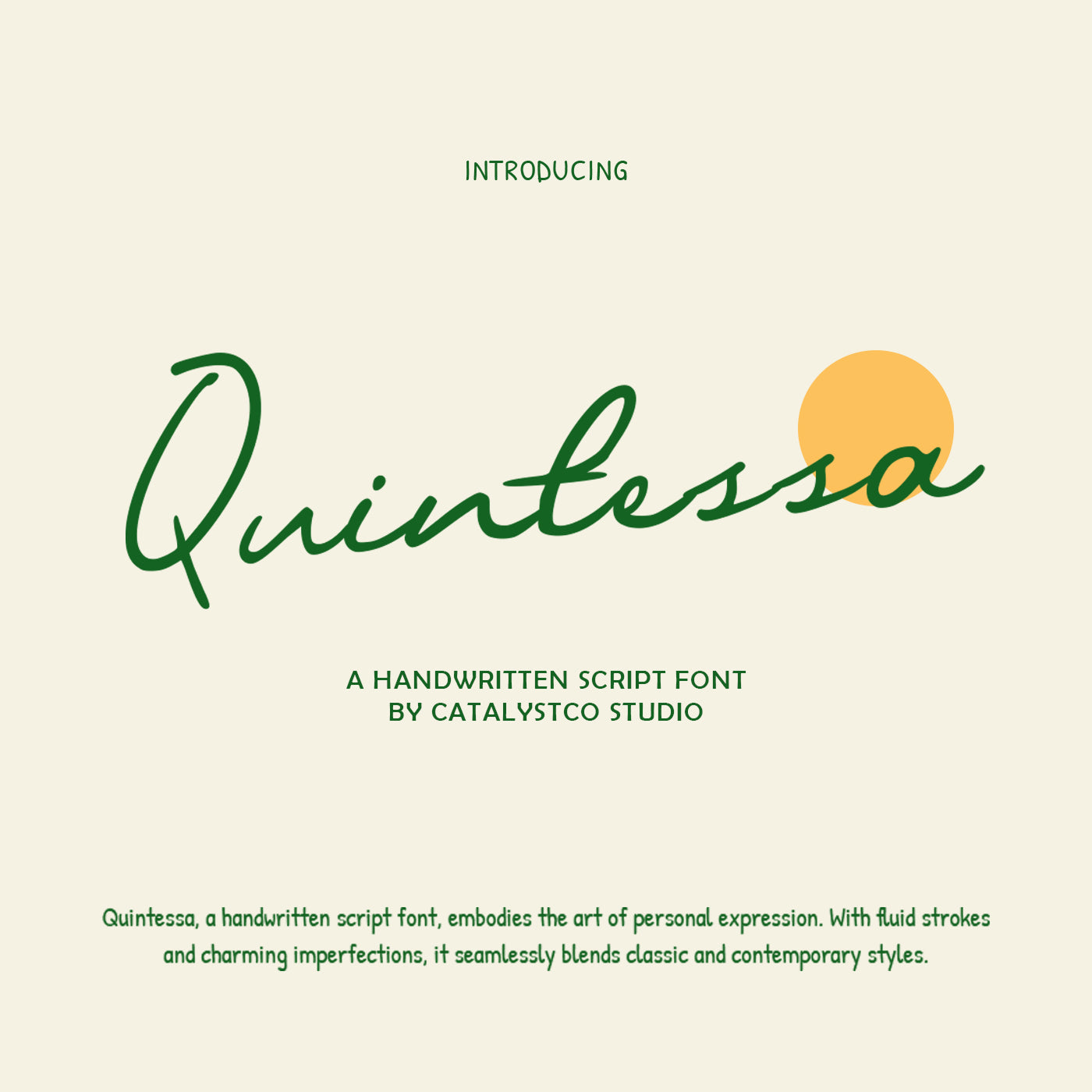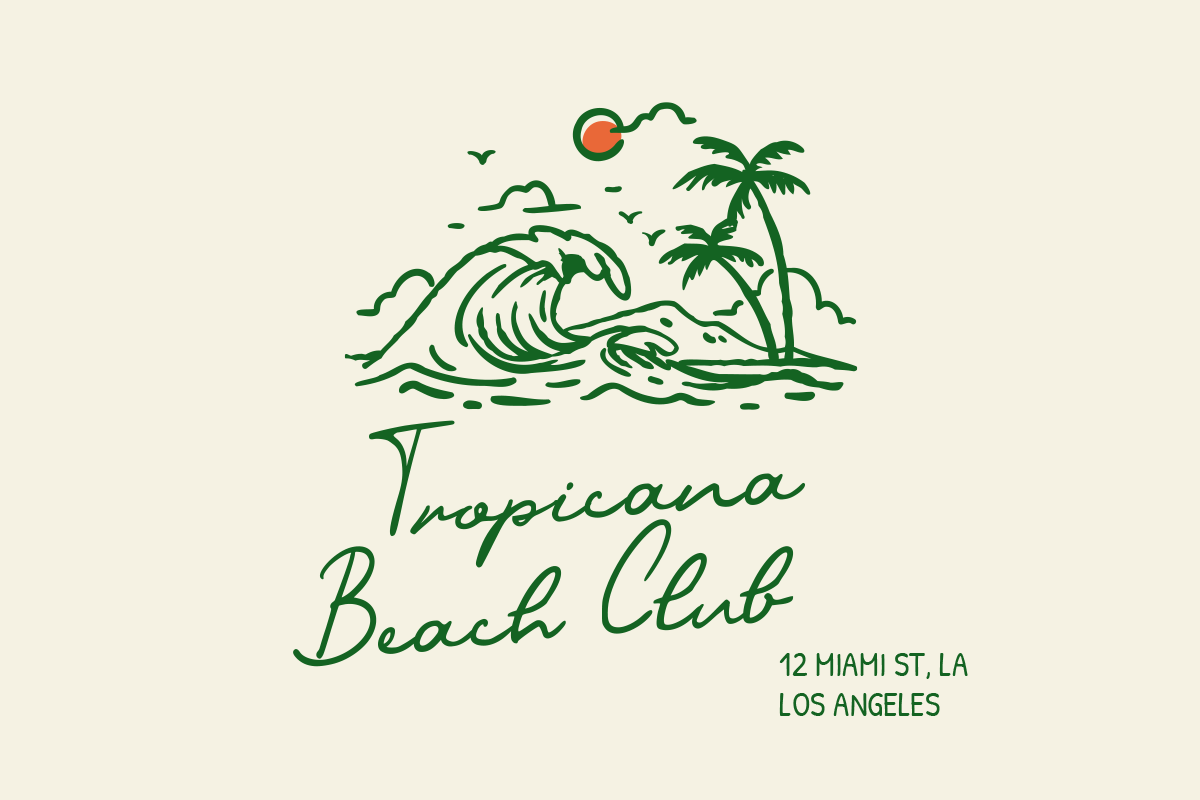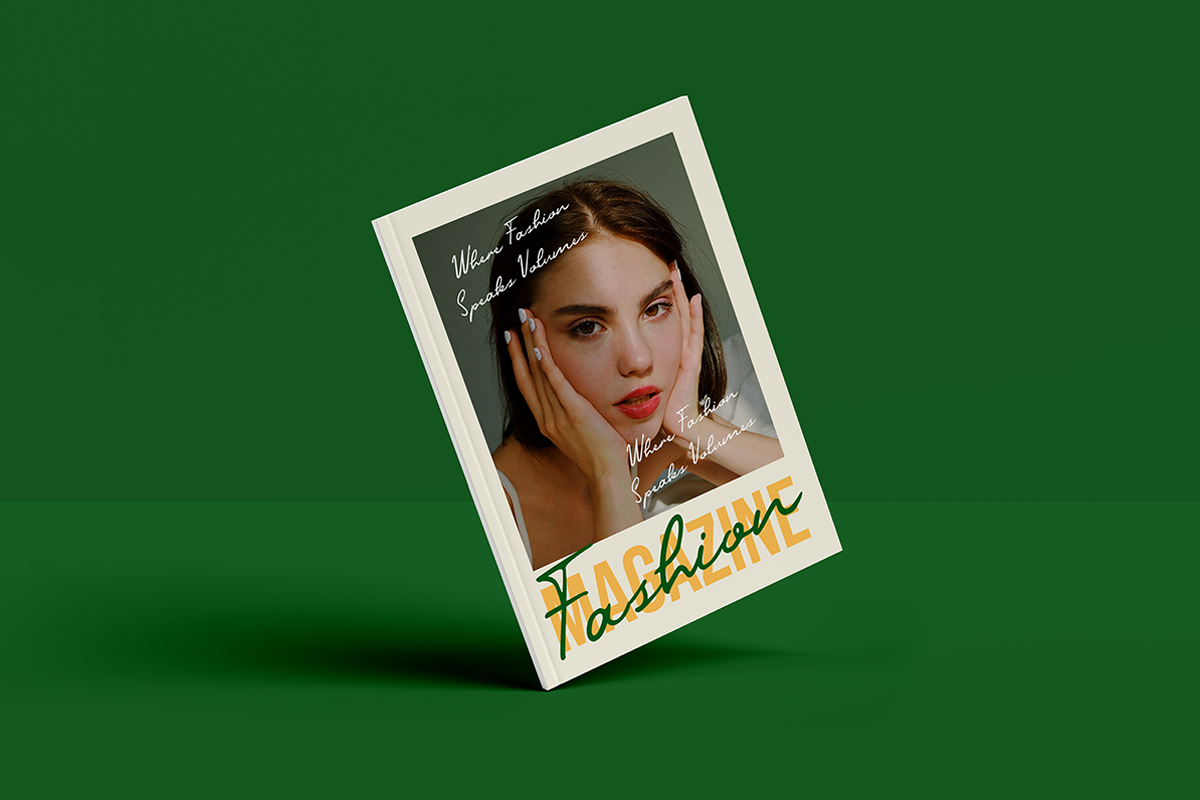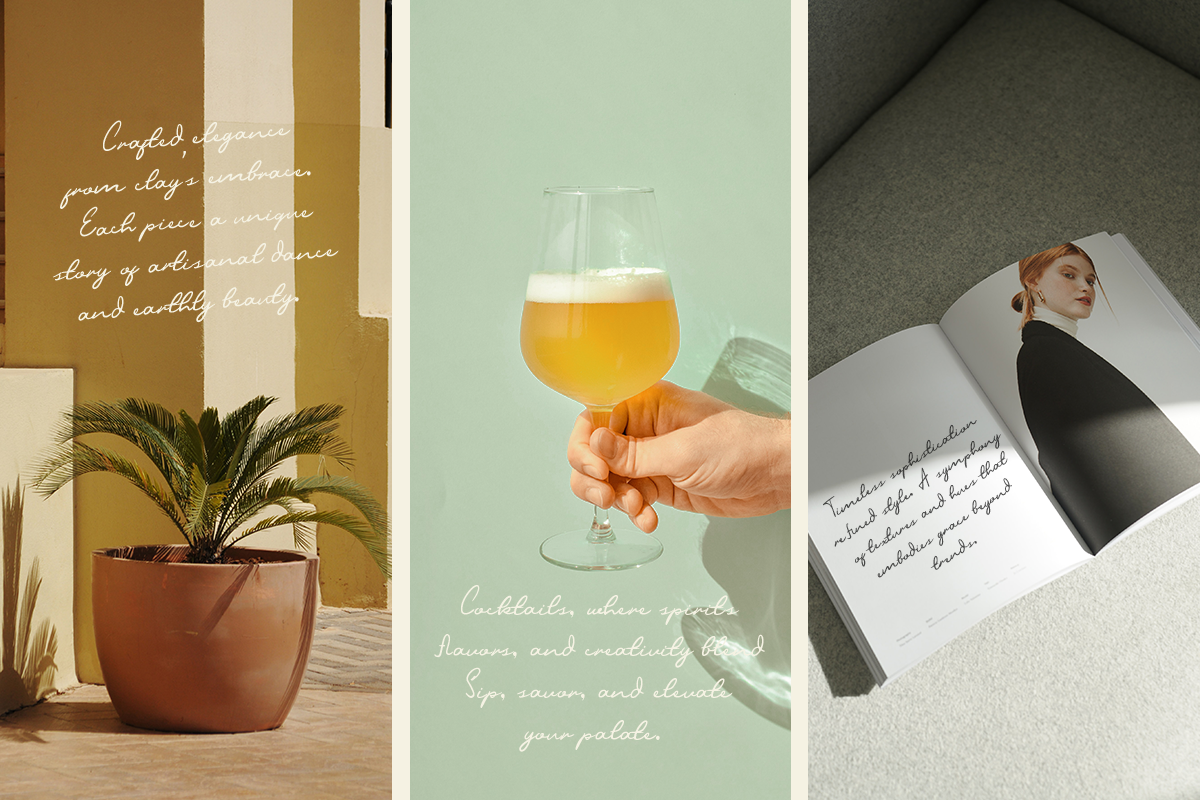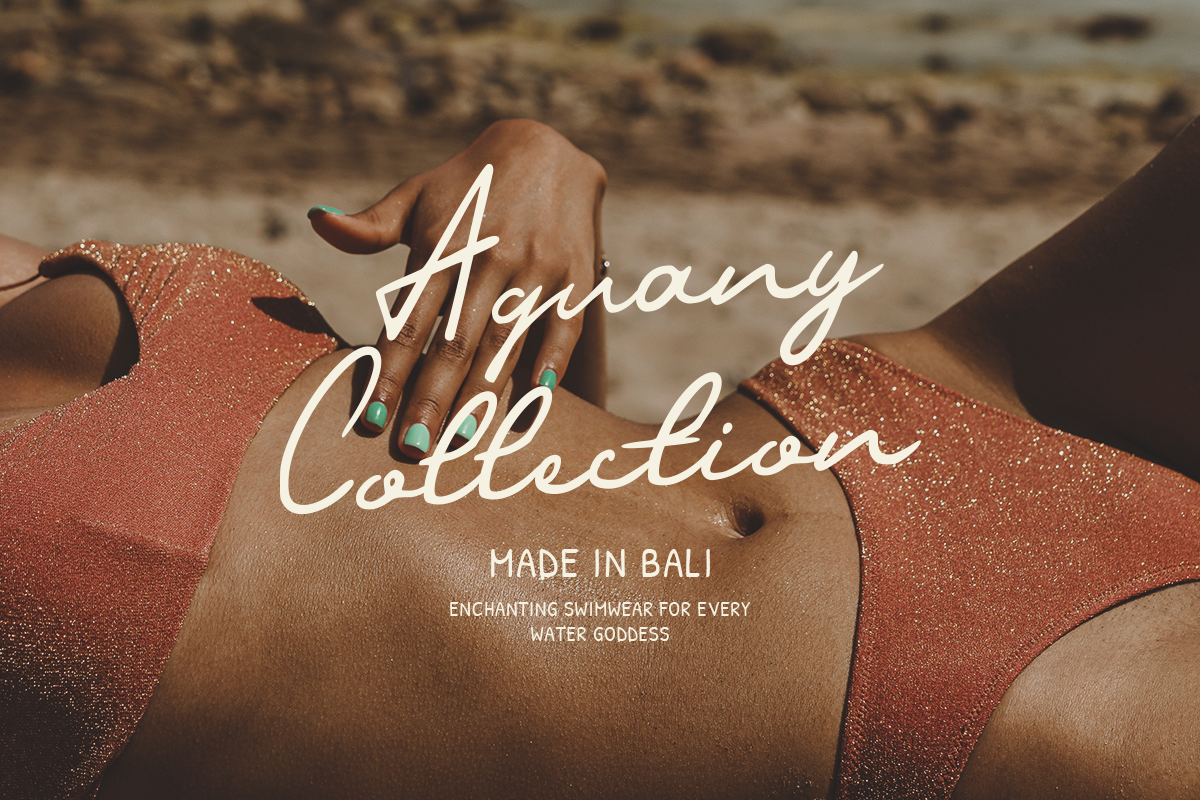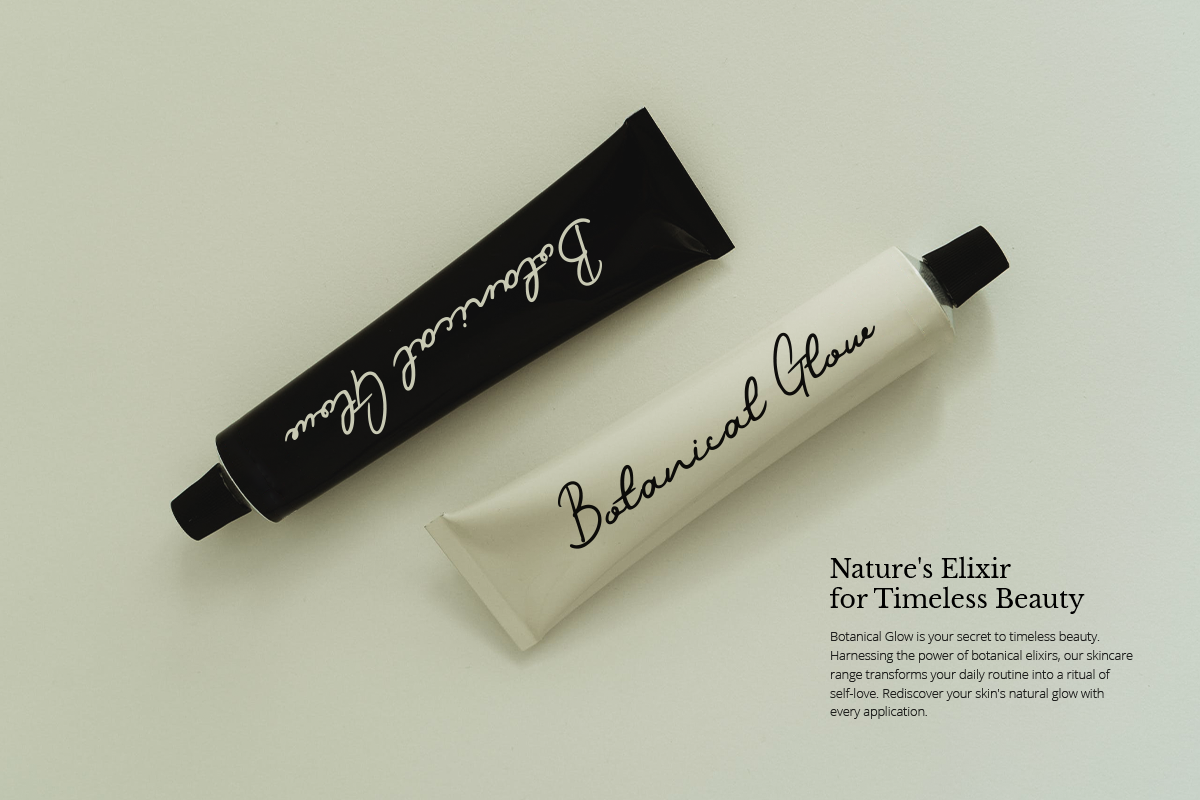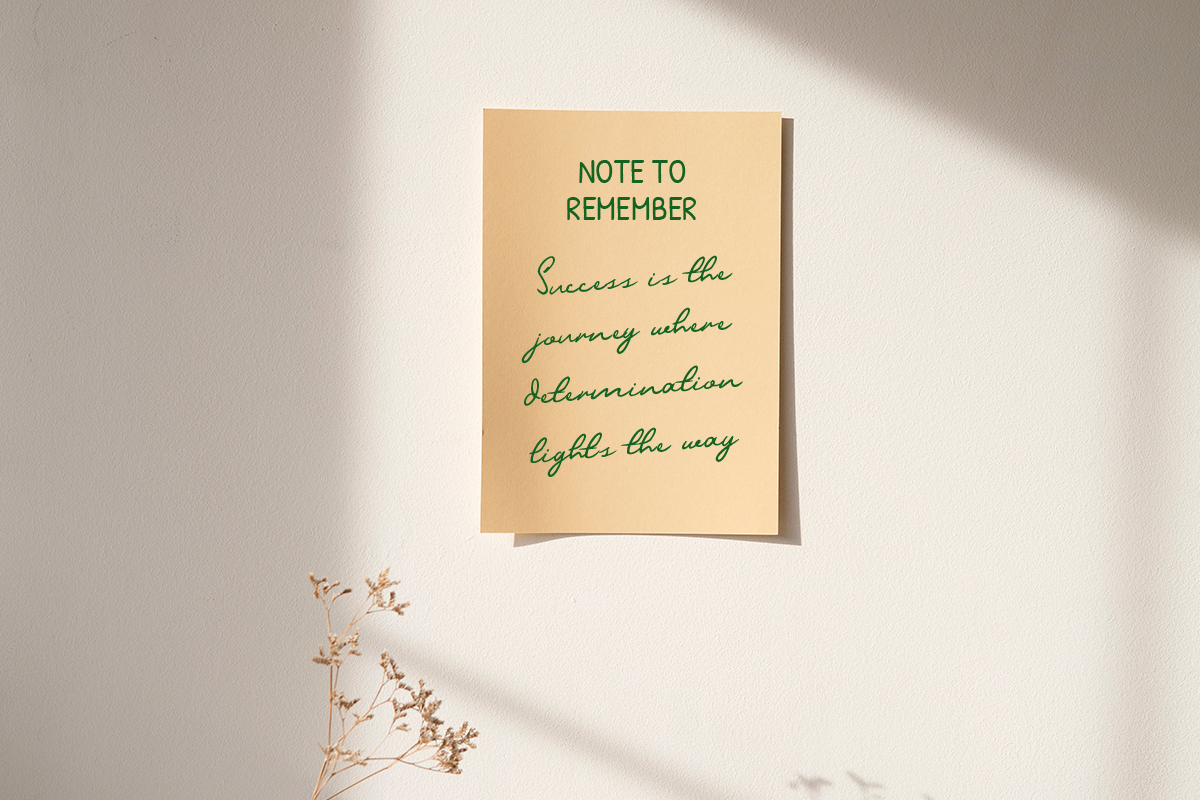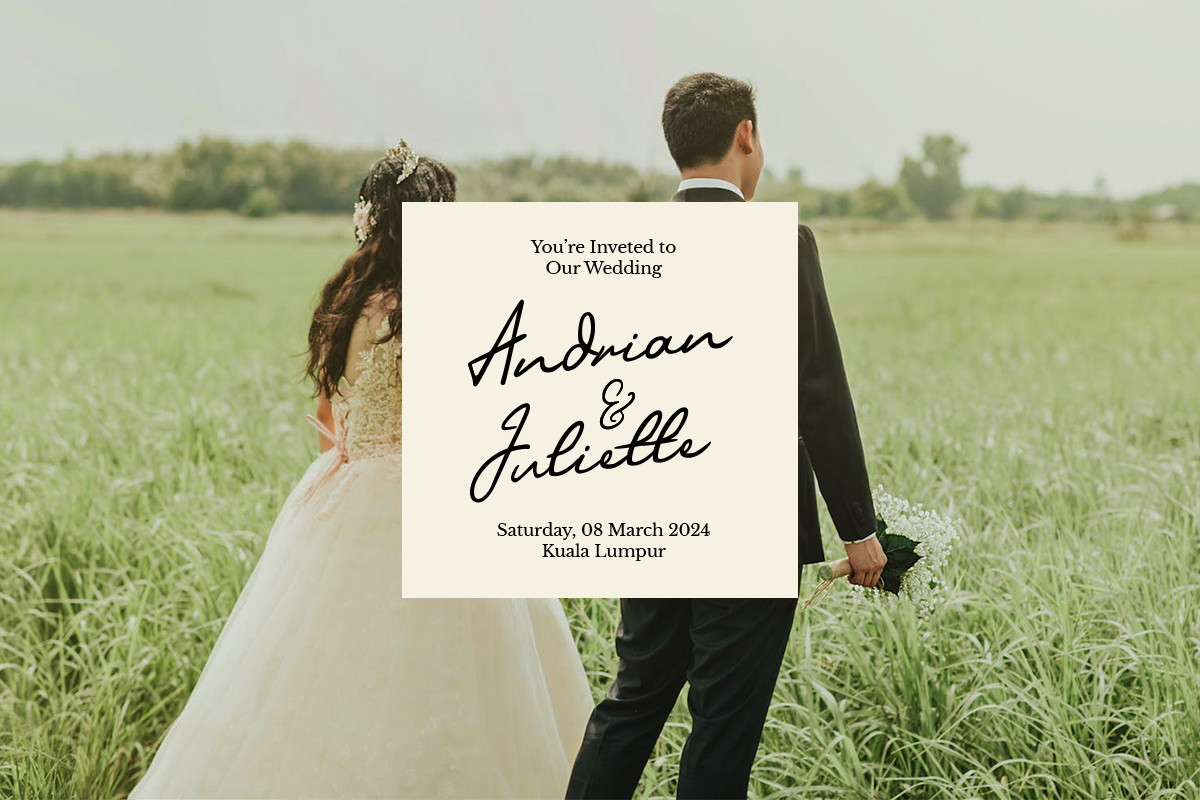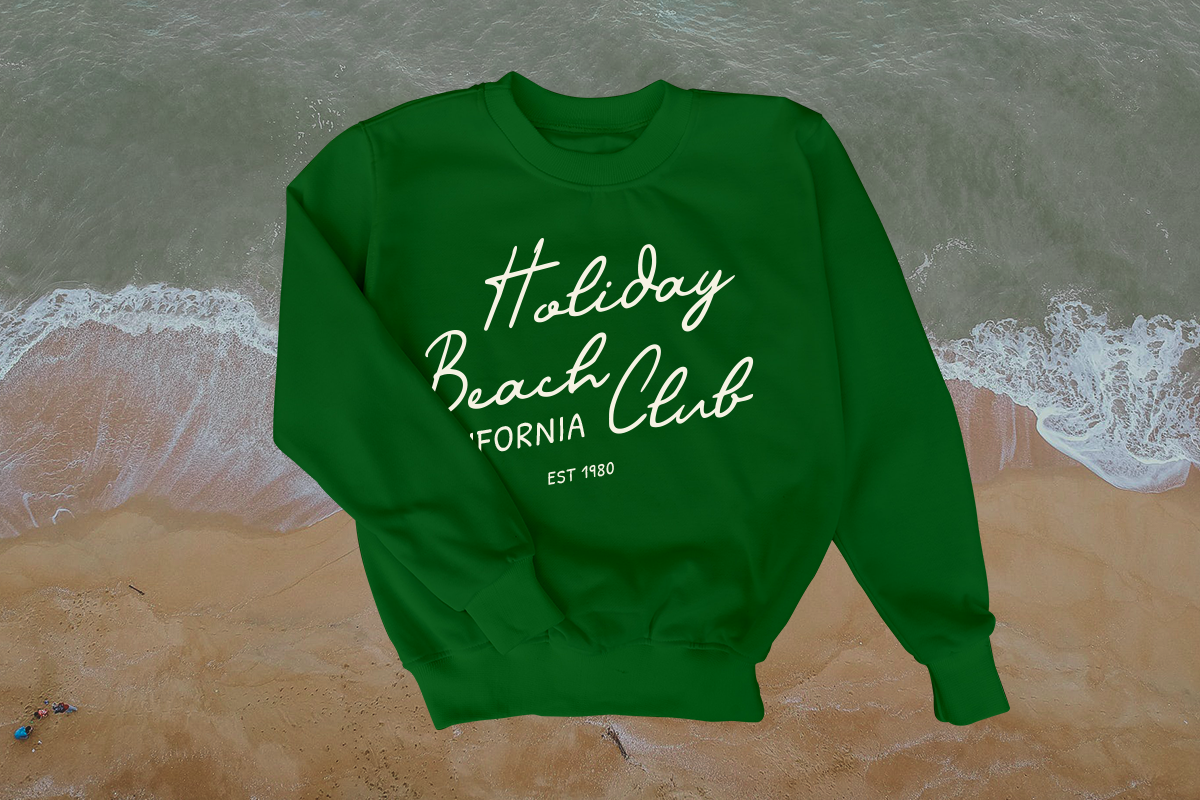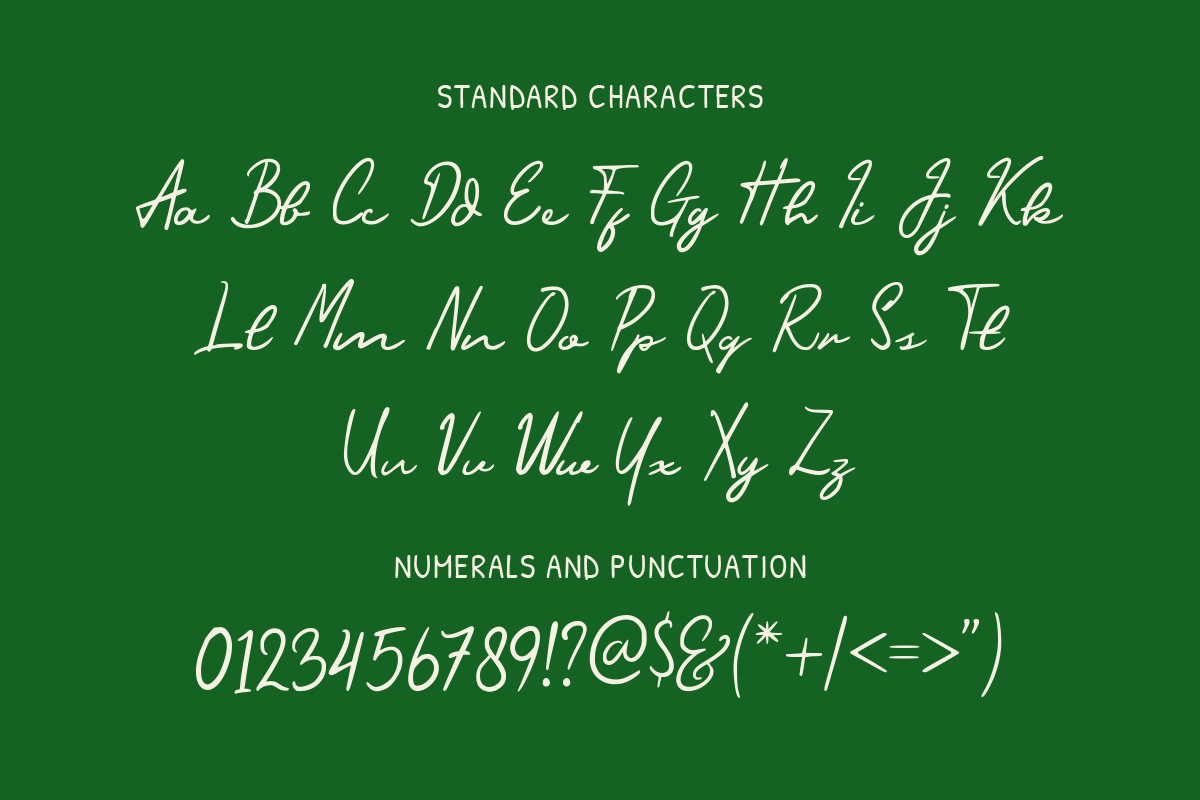
Quintessa Handwritten Script Font
Quintessa Handwitten is a clean handwritten script font built with fluid strokes and soft, graceful imperfections. Its natural flow and balanced rhythm create an expressive personal handwriting feel that works beautifully for branding, social media, wedding stationery, and modern lifestyle visuals. The gentle curves and contemporary handwritten character set add warmth and authenticity to any design. Comes in OTF, TTF, and WOFF formats with complete letters, numerals, and punctuation.
Relevance and Use Cases is perfect for branding identities, wedding invitations, social media posts, product packaging, lifestyle graphics, handwritten quotes, greeting cards, and creative projects requiring a soft personal handwriting look. Suitable for logo design, wedding stationery, social media templates, product labels, branding kits, lifestyle visuals, personal projects, greeting cards, and layouts requiring a soft handwritten feel.
Quintessa Handwritten Script Font is a handwritten script typeface featuring fluid strokes, uppercase and lowercase letters, ligatures, alternates, numerals, and punctuation. It is available in OTF, TTF, and WOFF formats.